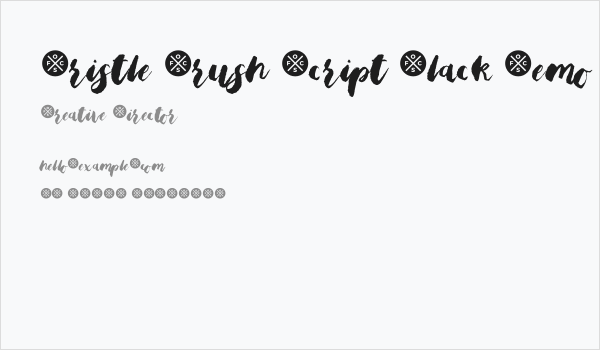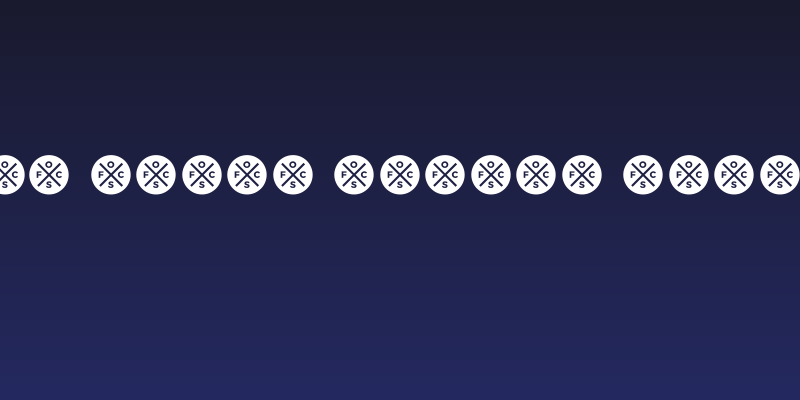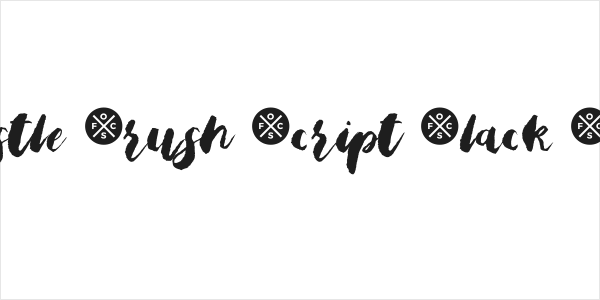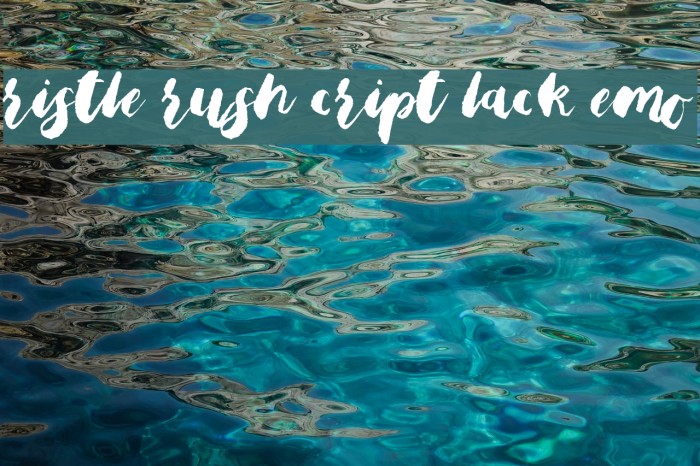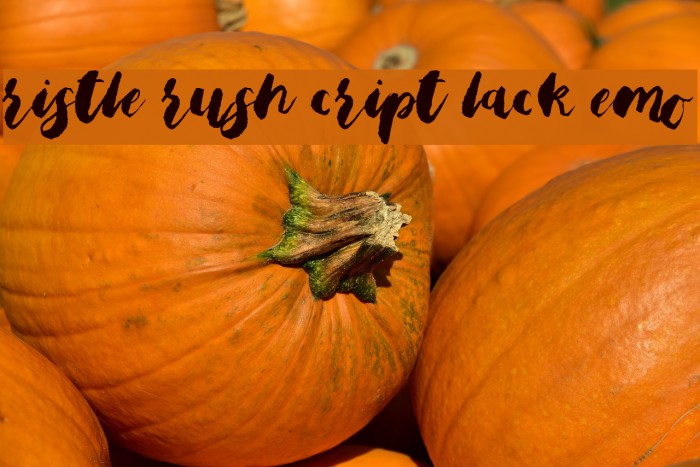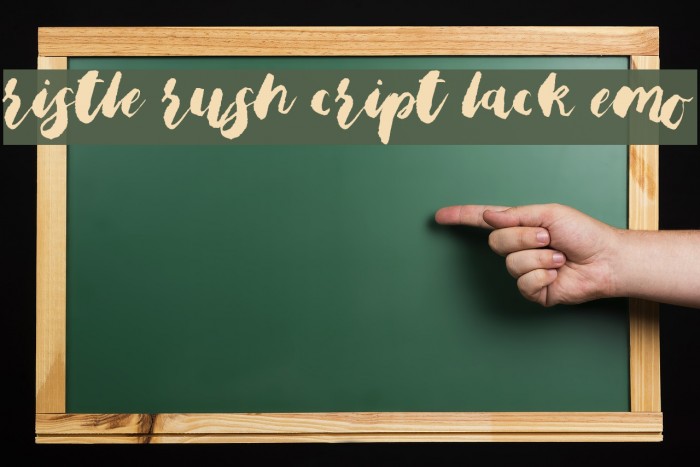
Bristle Brush Script Black Demo Font
Bristle Brush Script Black Demo Description
This font features a bold, expressive brush script style, characterized by its thick, textured strokes that mimic the appearance of hand-painted lettering. The letters are connected in a flowing, cursive manner, giving it a dynamic and energetic feel. The uneven edges and varying stroke widths add a sense of authenticity and handcrafted charm. This font is ideal for projects that require a personal touch or a creative flair, such as invitations, posters, or branding materials. Its bold presence makes it suitable for headlines and titles, where it can stand out and capture attention.
| Proposed Projects | Ideal for invitations, posters, branding, and any project needing a personal, artistic touch. |